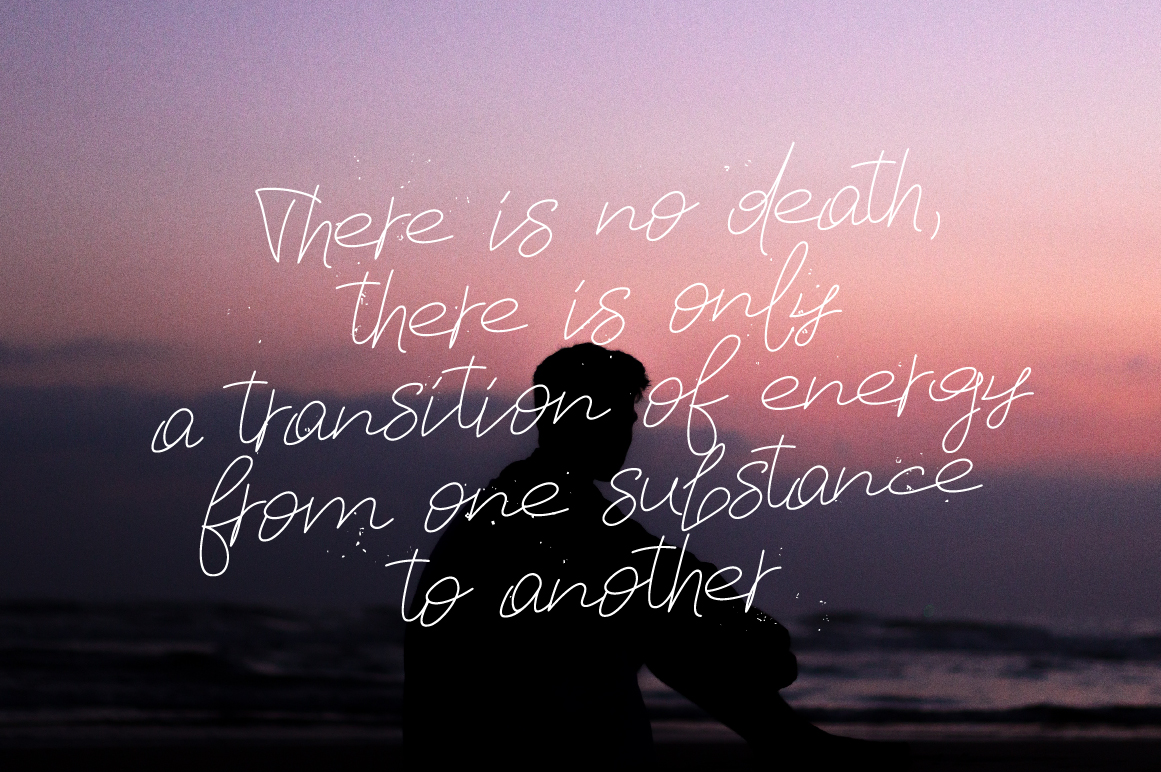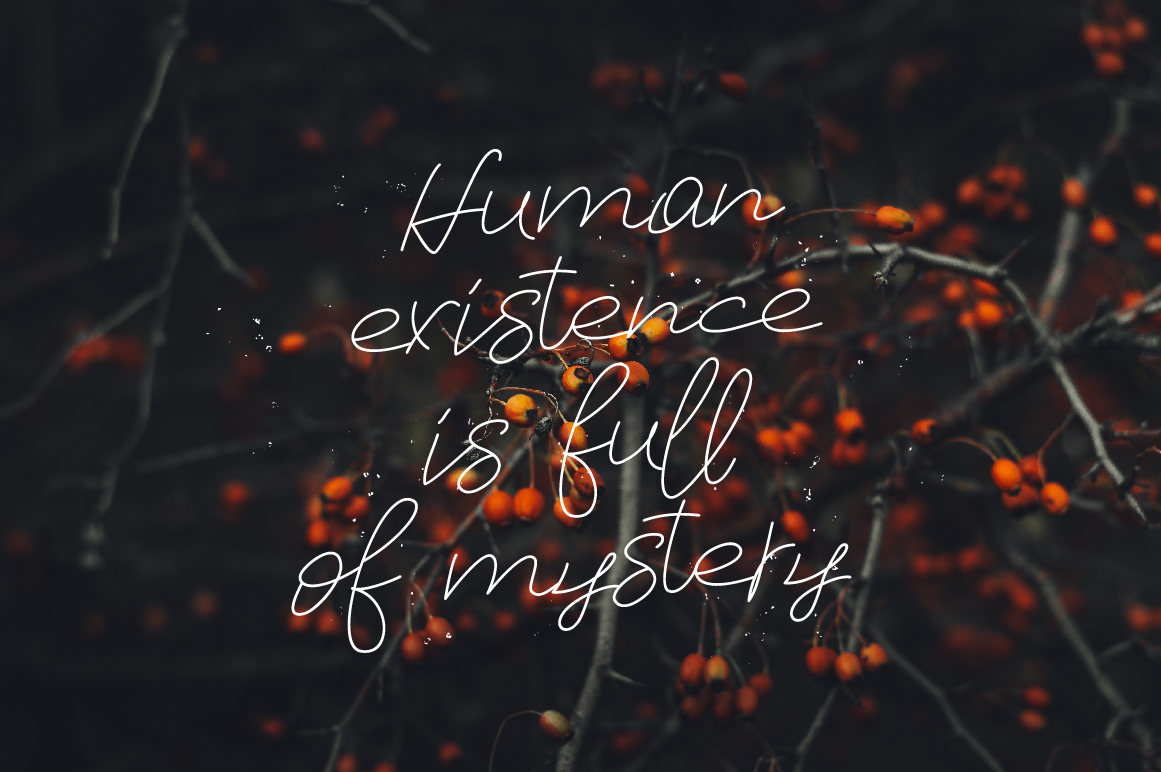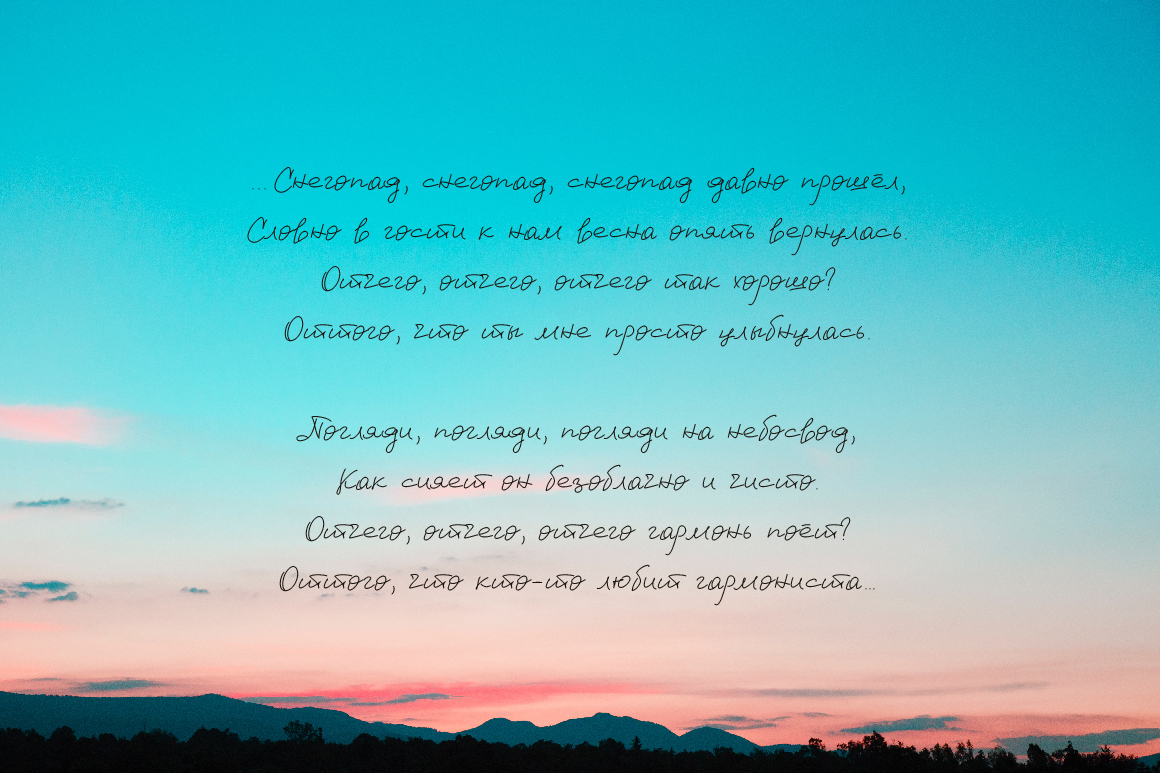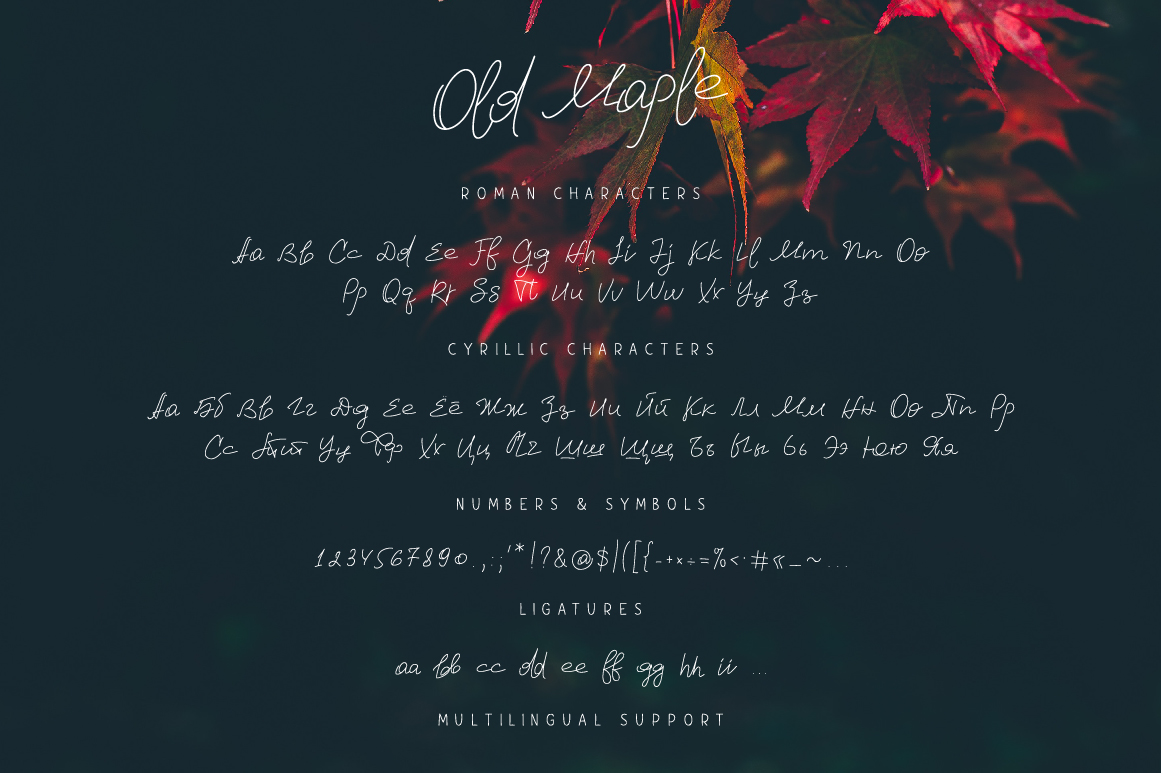
Old Maple Font
About Old Maple Font
Old Maple is a font that was created by carefully taking all the letters from my fathers notebook. The missing letters were created based on the available ones.
The Old Maple font comes with uppercase and lowercase characters and features a large set of punctuation, numerals, ligatures, Cyrillic characters and also features multilingual support.